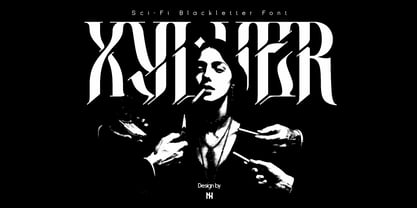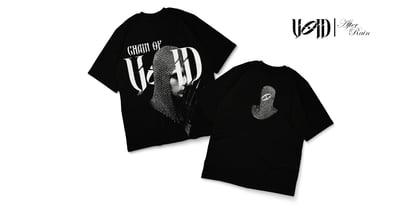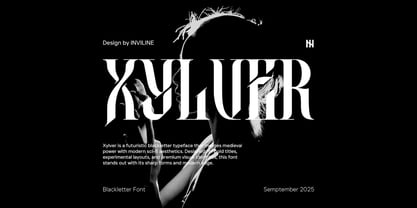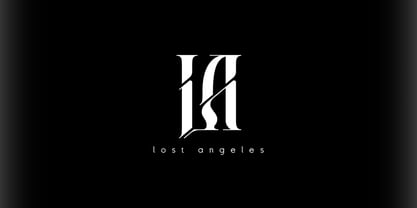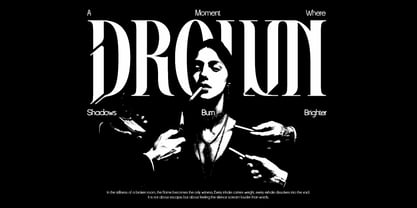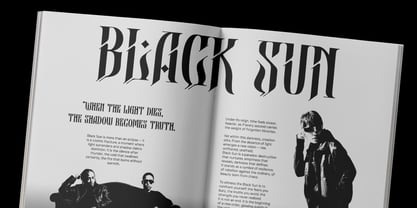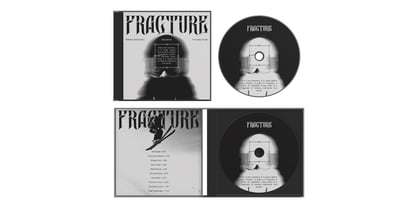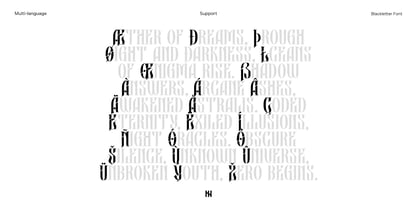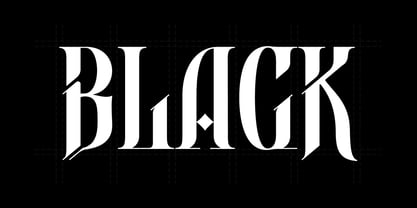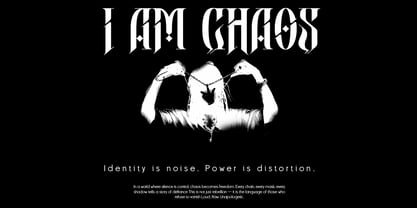
Xylver PRO
by Inviline
The Xylver PRO Font Family was designed by Virgiawan Listanto and published by Inviline. Xylver PRO contains 1 styles.
Xylver is a modern, experimental blackletter font that embodies an apocalyptic aesthetic. Step into the dark realm of futuristic typography with Xylver, which features bold, distorted letterforms that exude attitude and presence. This typeface merges medieval rebellion with cutting-edge design, making it ideal for projects that require a sense of mystery and dominance. Drawing inspiration from dystopian visions, cyber rituals, and gothic street fashion, Xylver is crafted to make a statement — letter by letter. Whether you're designing album covers, experimental posters, movie titles, or futuristic branding, Xylver provides a thrilling visual identity that balances on the edge of reality and chaos. What You Get: Uppercase Letters A–Z, Numbers 0–9, Punctuation & Symbols, Unique Glyph Alternates, Sci-Fi Inspired Ligatures, and Multilingual Support (Latin Extended). Perfect For: Underground music branding, sci-fi and horror poster design, cyberpunk fashion identity, techno rave flyers & titles, streetwear editorial layouts, and concept art & experimental zines.
Designers: Virgiawan Listanto
Publisher: Inviline
Foundry: Inviline
Design Owner: Inviline